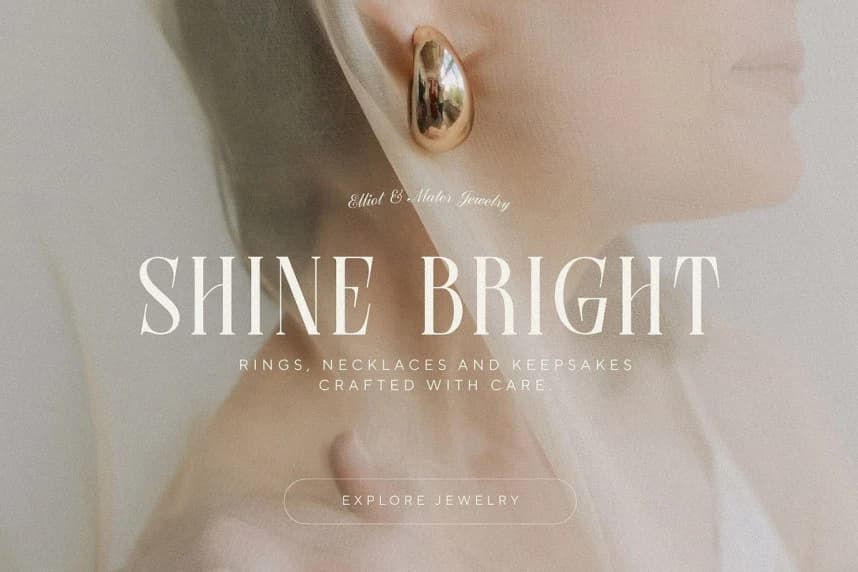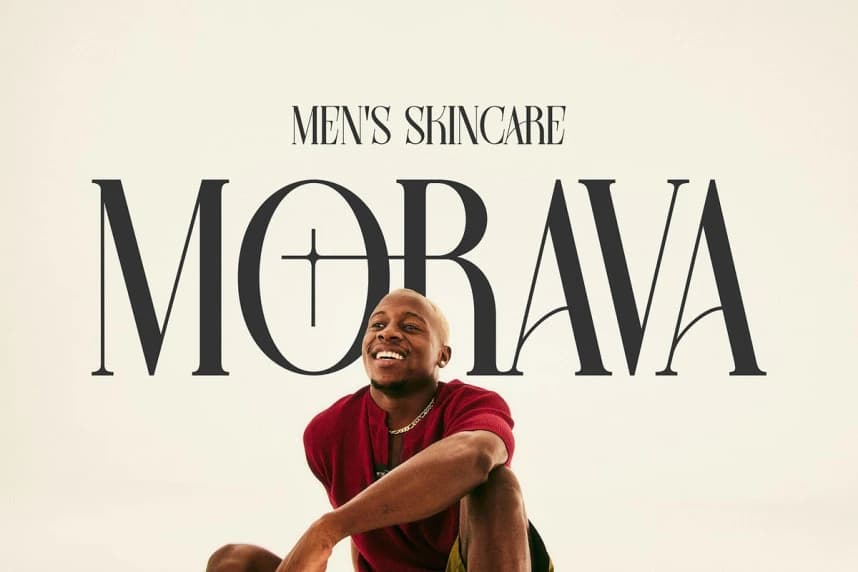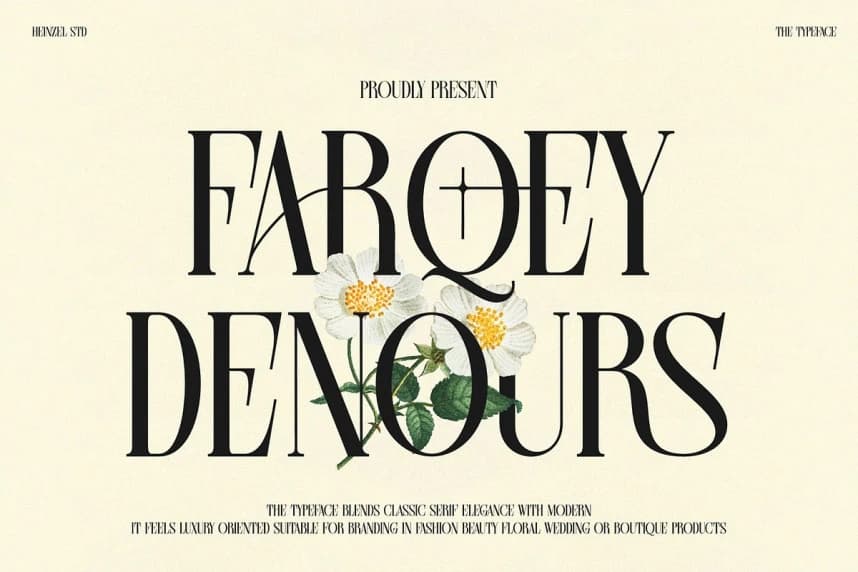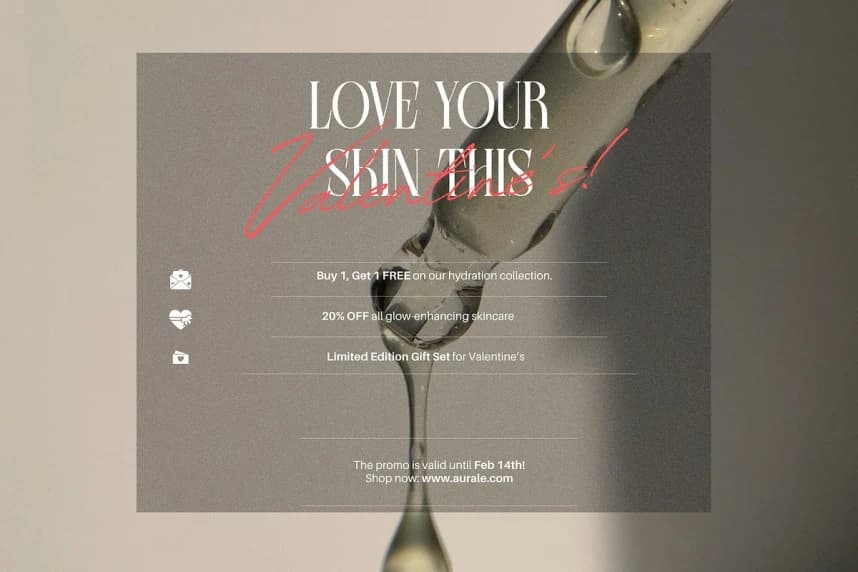
Farqey Denours Font is a luxury modern serif font that blends classic elegance with refined contemporary details. Designed with high contrast strokes, graceful curves, and distinctive letterforms, this serif typeface delivers a sophisticated and premium aesthetic.